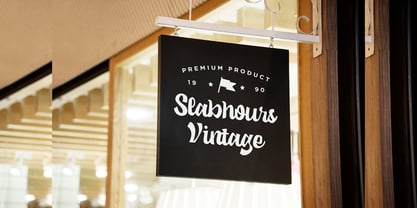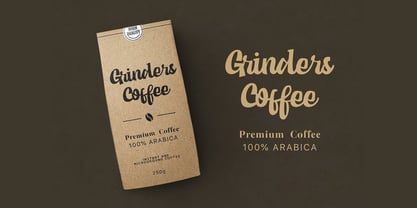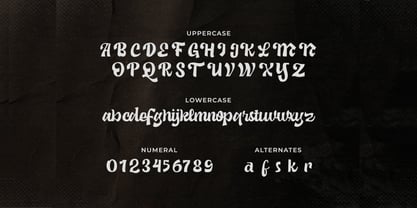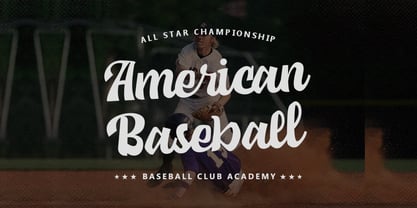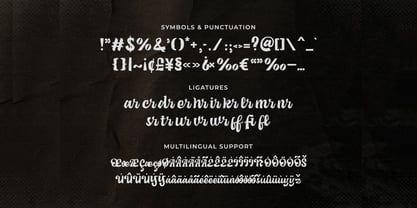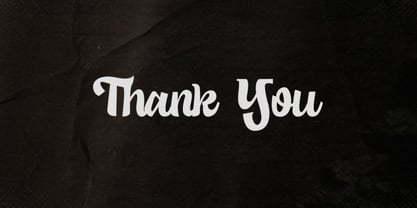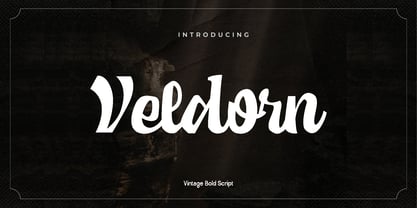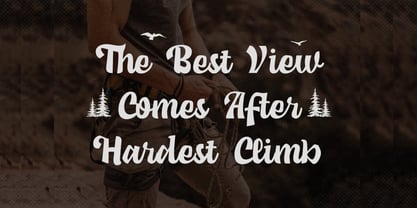
Veldorn
The Veldorn Font Family was designed by Olivia Love and published by Only Fonts. Veldorn contains 1 styles. More about this family
Veldorn is a bold vintage script with the soul of a hand‑painted sign and the confidence of a headline. Its stroke contrast, rounded terminals, and lively connections echo mid‑century storefront lettering while staying crisp and readable in modern layouts. Veldorn brings warmth, craft, and instant nostalgia to any project that needs personality without sacrificing clarity. Use it when you want your words to feel inviting, authentic, and unmistakably confident. Where it shines: - Brand signatures and logos for coffee shops, vintage restaurants, barbers, breweries, and artisanal products. - Packaging, badges, and labels that call for handcrafted charm and shelf impact. - Editorial and posters: section titles, pull quotes, and event graphics with retro energy. - Signage, menus, apparel, and merchandise where a strong script must read quickly from a distance. Standout features: - Complete uppercase and lowercase with smooth, natural connections for polished word shapes. - Symbols and punctuation designed to match the script texture for cohesive layouts. - Lining numerals that pair cleanly with the letterforms for dates, prices, and table numbers. - Useful ligatures that remove awkward collisions and increase rhythm in common pairs. - Stylish alternates to vary tone from casual to premium and add a bespoke feel to logos. - Multilingual support so your brand voice travels consistently across regions. Veldorn is perfect for logos, headings, coffee shops, vintage restaurants, letterheads, signage, labels, news layouts, posters, badges, and much more. When your design needs handcrafted warmth with bold presence, Veldorn delivers a timeless script voice that’s both expressive and reliable.